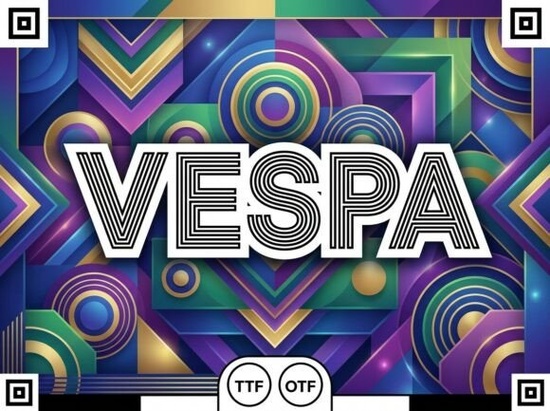
If you're working on a project that needs a bold, futuristic vibe think synthwave album art, retro-futuristic game UIs, or eye-catching social banners the Vespa Font might be exactly what your design’s missing. It’s not just another display font; it blends 80s nostalgia with sleek digital energy through its tall, sans-serif letterforms and rhythmic multi-line inline details.
What makes Vespa stand out is how it balances structure and personality. The lines inside each character create movement without overwhelming the form, giving your text a dynamic pulse perfect for anything that needs to feel both nostalgic and forward-thinking. Whether you’re designing merch for an electronic music act or building a brand identity for a tech startup, this font adds instant atmosphere without sacrificing legibility at larger sizes.
Where does Vespa Font work best?
Vespa shines in visual contexts where mood matters as much as message. Here are a few real-world uses where it consistently delivers:
- Music posters and album covers – especially for synthwave, vaporwave, or indie electronic artists.
- Gaming interfaces and promotional assets – its high-tech aesthetic fits sci-fi or cyberpunk themes naturally.
- Social media headers and reels – the inline detail catches attention even in fast-scrolling feeds.
- Print-on-demand products like t-shirts, mugs, or phone cases featuring retro-futuristic quotes or slogans.
It’s worth noting that Vespa is a display font, so it’s meant for headlines, logos, or short bursts of text not body copy. But within that role, it’s remarkably versatile. Pair it with clean, minimalist sans-serifs (like Montserrat or Inter) for contrast, or go full retro with complementary typefaces such as Momo for layered compositions.
How does it compare to other display fonts?
Not all display fonts carry the same energy. If you’ve browsed Creative Fabrica’s collection, you might’ve seen options like Cloak, which leans into mystery with sharp, angular strokes, or Rough Bold, which brings tactile grit to streetwear-inspired designs. Vespa sits in a different lane it’s polished but pulsing, digital but warm.
For projects needing raw edge, something like Black Army delivers aggressive texture. And if your vibe is playful rather than futuristic, Victim offers quirky, hand-drawn charm. But when your goal is “neon meets now,” Vespa fills a very specific niche with confidence and clarity.
Tips for using Vespa effectively
Because of its detailed inline treatment, Vespa performs best at medium to large sizes. Avoid using it too small below 24pt and those fine lines may blur together, losing their rhythm. Also, consider your background: light text on dark (or vice versa) with enough contrast helps the internal lines pop. A subtle glow or outer stroke can enhance the neon effect without overdoing it.
Finally, don’t feel pressured to use every stylistic feature at once. Sometimes just a single word in Vespa like “NEON,” “FUTURE,” or “PULSE” is enough to set the tone for an entire layout.
If your current project calls for a font that feels both retro and radically modern, Vespa offers a distinctive voice without being gimmicky. It’s crafted with enough precision to hold up in professional settings, yet full of character for creative experimentation.
- Is my design meant to evoke energy, technology, or 80s-inspired futurism?
- Will the text appear large enough for the inline details to read clearly?
- Do I have a simple supporting typeface to balance Vespa’s intensity?
- Am I using it for headlines, logos, or short phrases not paragraphs?
If you answered yes to most of these, Vespa could be your next go-to display font. And if you’re exploring similar styles, take a look at Momo or Cloak for alternative moods within the same category.